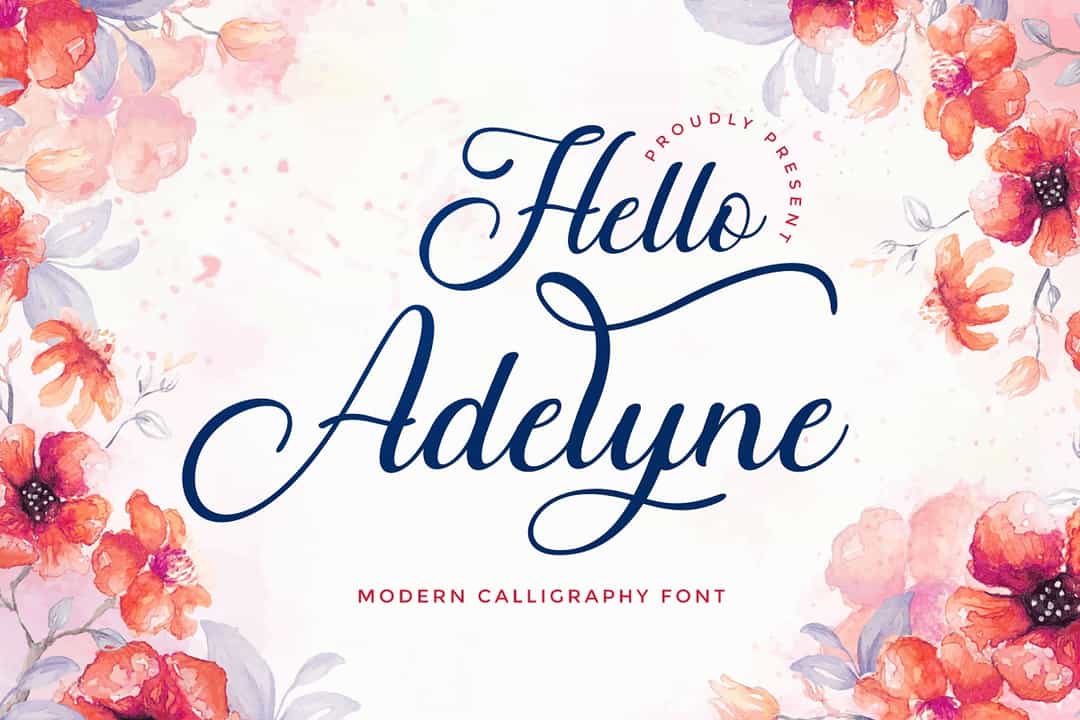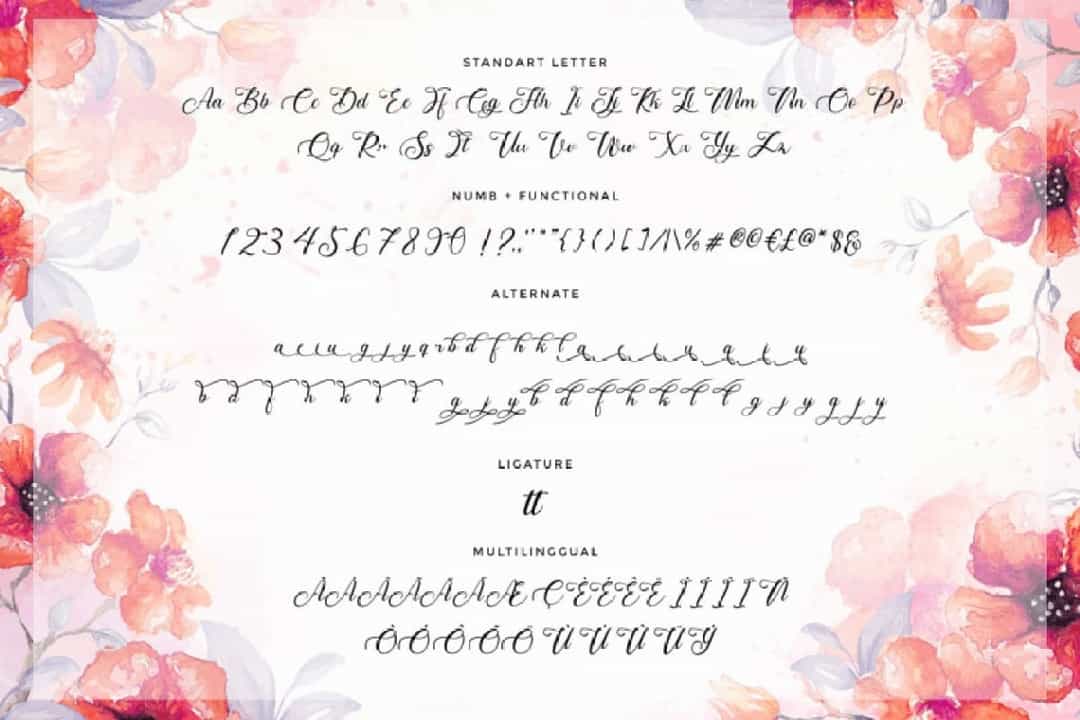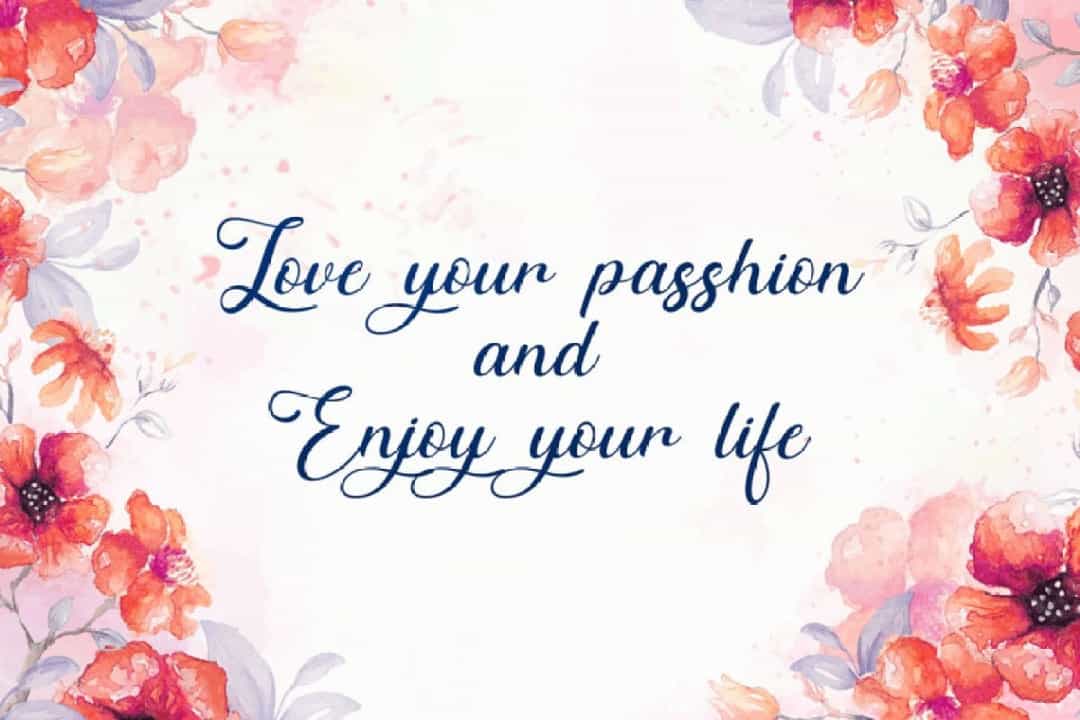
Hello Adelyne is a classy font type that is suitable to be used in professional formatting. Boasting of the modern, female, cute, and simple design elements and characteristics. Thus, Hello Adelyne is ideal for watermarks of wedding organizers and signature logos, as well as for album covers, quotes, business cards, and other design works – “Hello Adelyne is here to take your work or business to new levels!!”